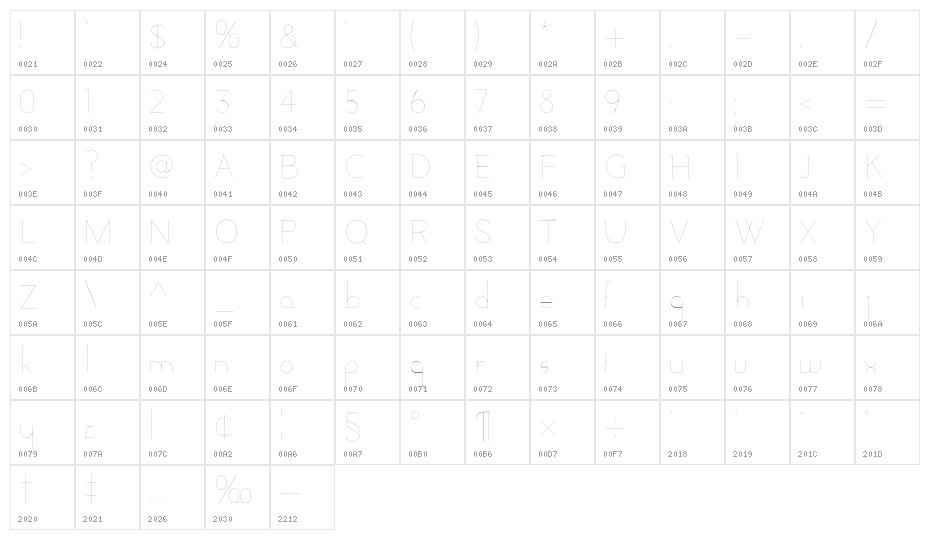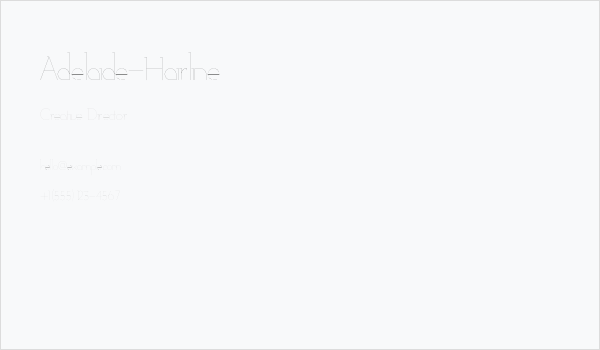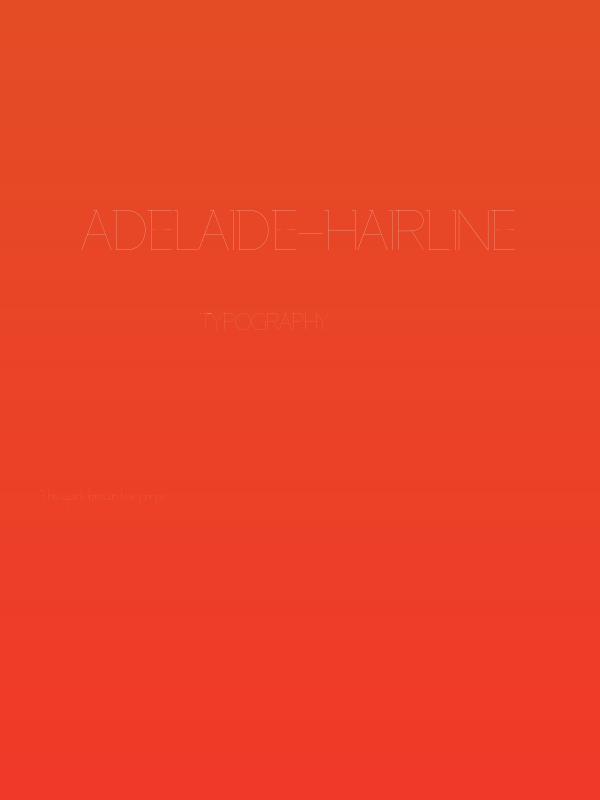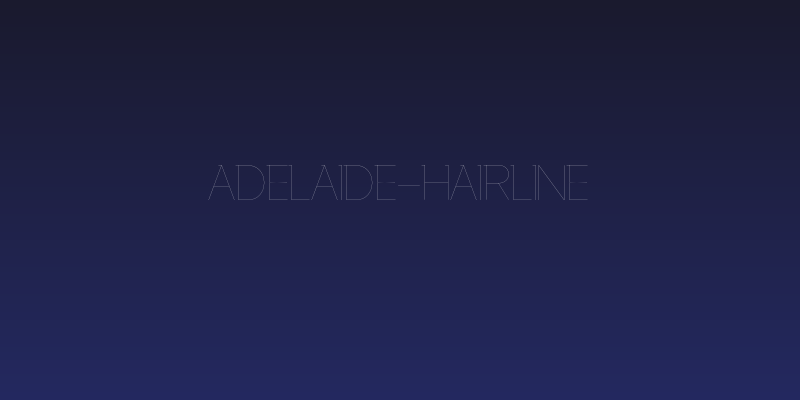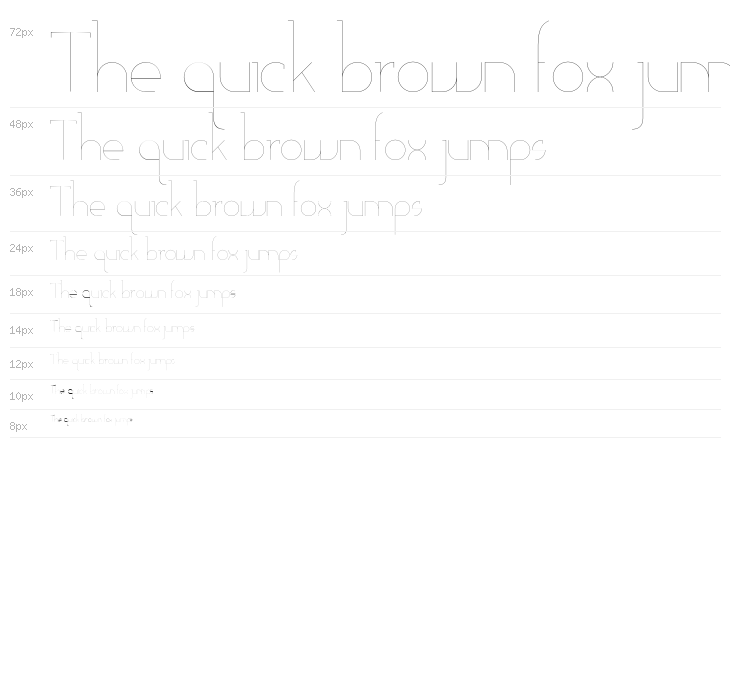
Adelaide-Hairline Font
Adelaide-Hairline Description
This font features an ultra-thin, elegant design with clean lines and a modern aesthetic. The characters are delicately crafted with a consistent stroke width, giving it a refined and sophisticated appearance. The uppercase letters are tall and slender, while the lowercase letters maintain a similar thinness, enhancing the font's airy and open feel. The numerals and special characters are designed to match the overall sleek style, making it suitable for minimalist and contemporary projects. Its hairline weight ensures that it is best used in larger sizes where its delicate details can be appreciated.
| Proposed Projects | Ideal for high-end branding, fashion magazines, luxury product packaging, and minimalist web design. |